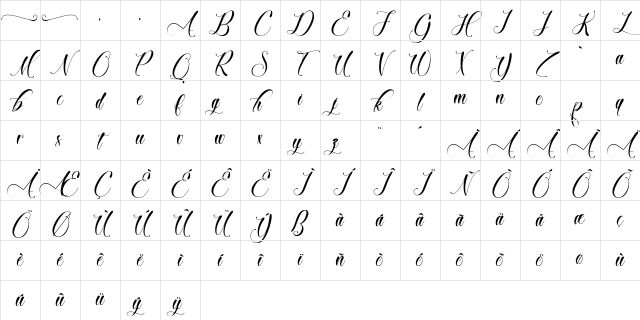
Broken Heart Regular
Foundry: Typhoon Type - Suthi Srisopha
Designer: Typhoon Type - Suthi Srisopha
Design Context for Broken Heart
Broken Heart is a composed and adaptable typeface that performs quietly and consistently across a wide range of design contexts.